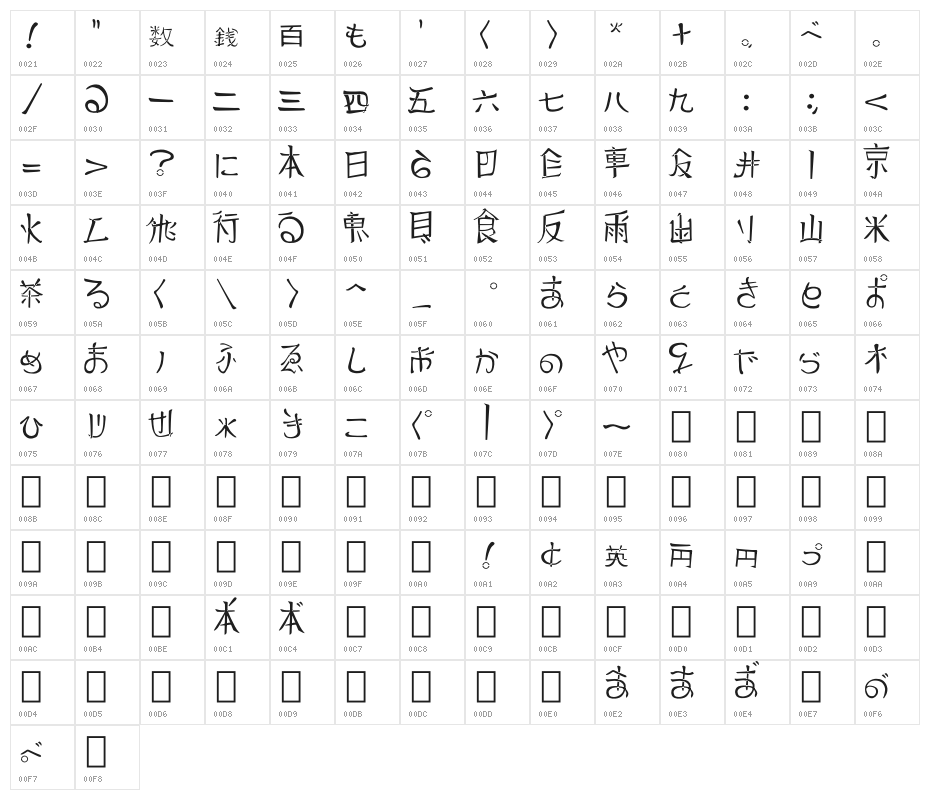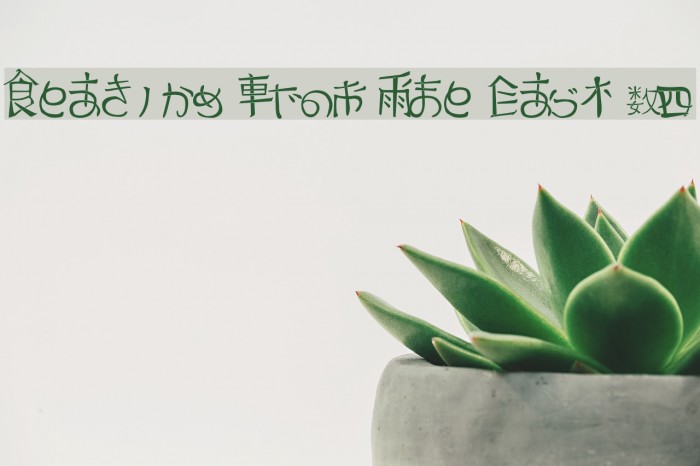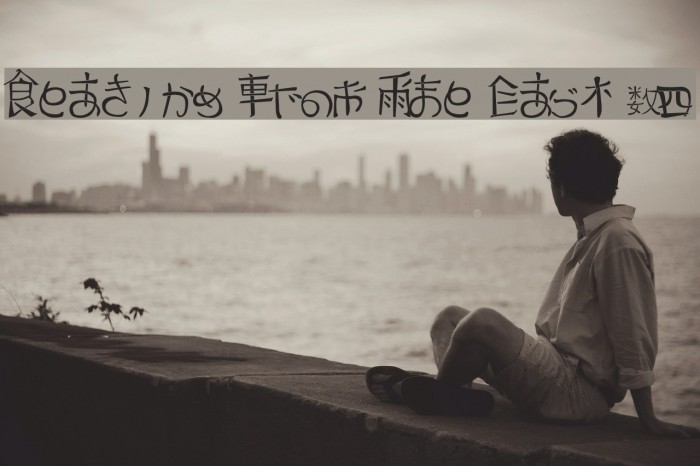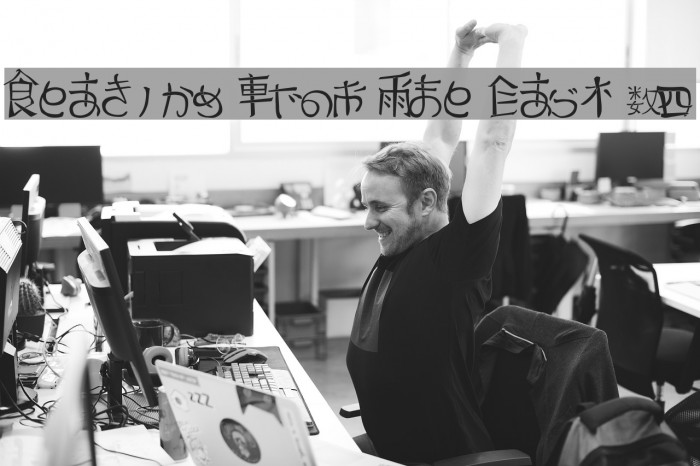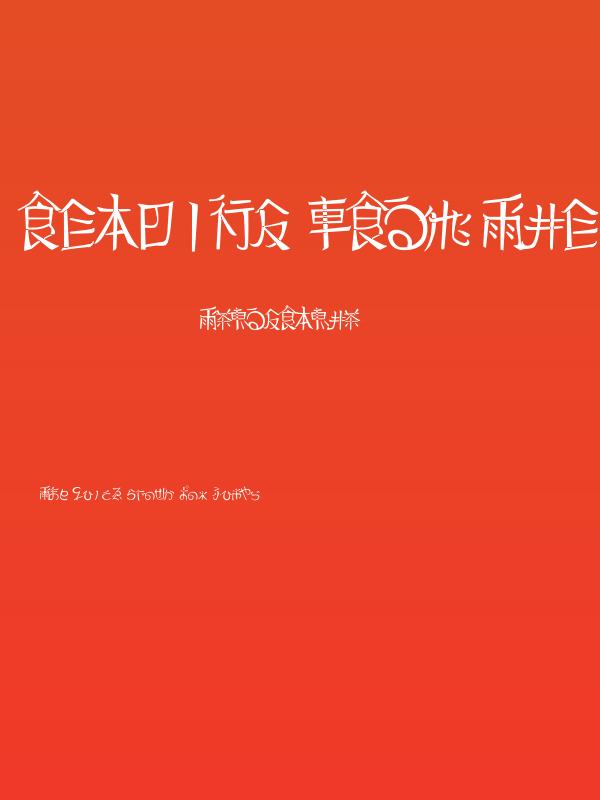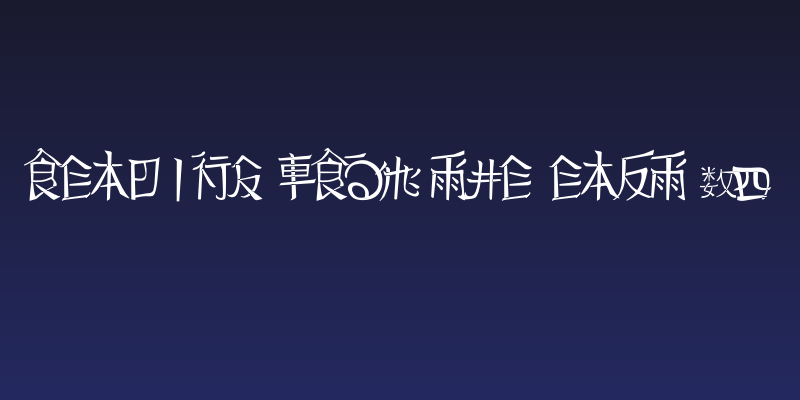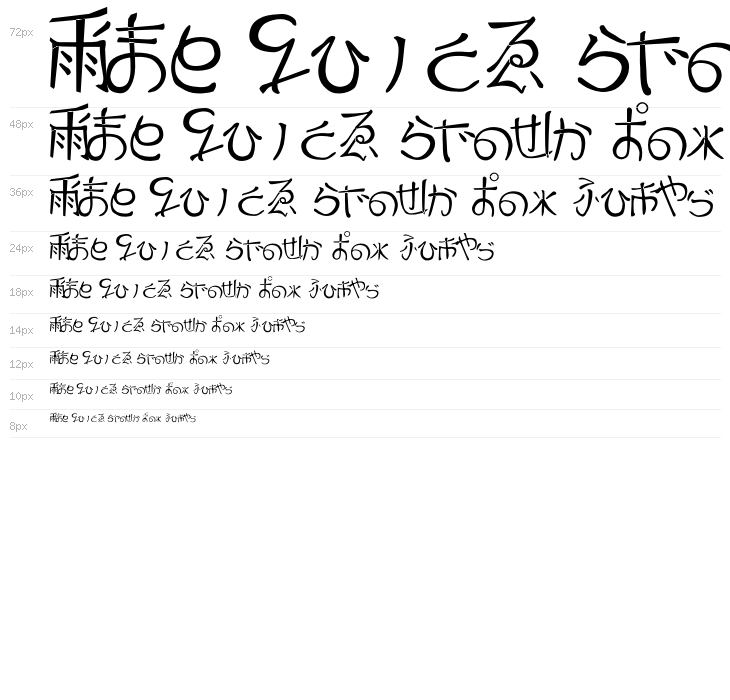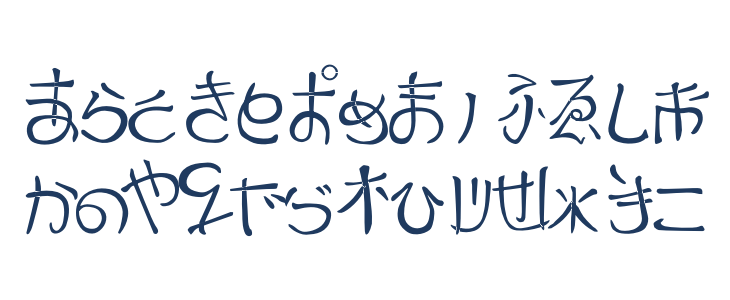
Reading From The East #4 Font
Reading From The East #4 Description
This font features a unique blend of traditional and modern elements, characterized by its flowing, calligraphic style. The strokes are dynamic and varied, with a noticeable contrast between thick and thin lines, giving it an expressive and artistic appearance. The characters are slightly elongated, adding to the elegance and fluidity of the design. The overall aesthetic is reminiscent of handwritten script, yet maintains a structured form that enhances readability. This font is particularly well-suited for projects that require a touch of sophistication and cultural flair.
Use CaseHeadlines, Artistic projects, Invitations
Proposed ProjectsIdeal for cultural event posters, artistic book covers, and elegant invitations.